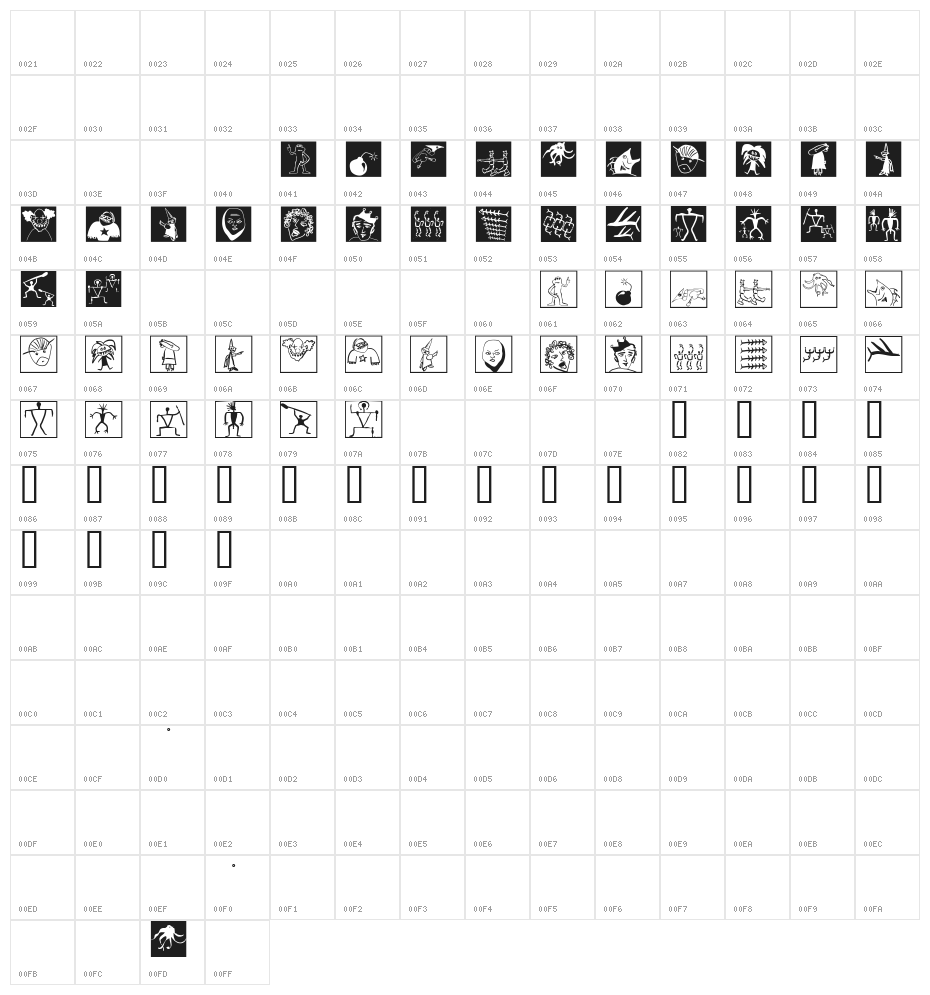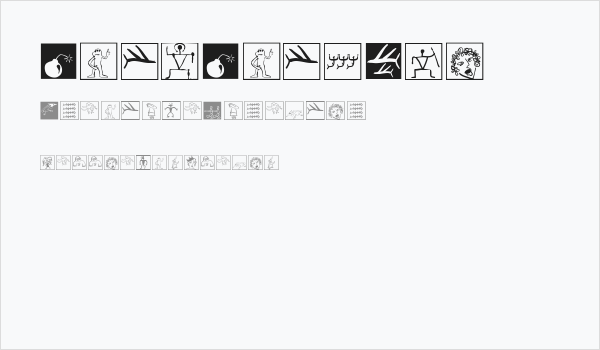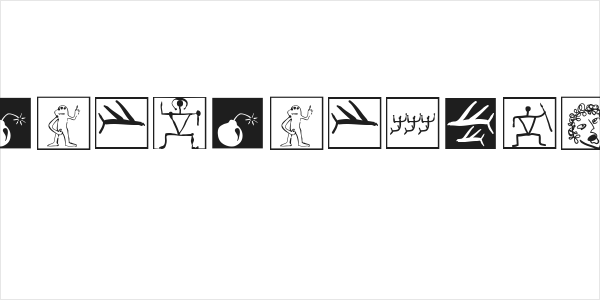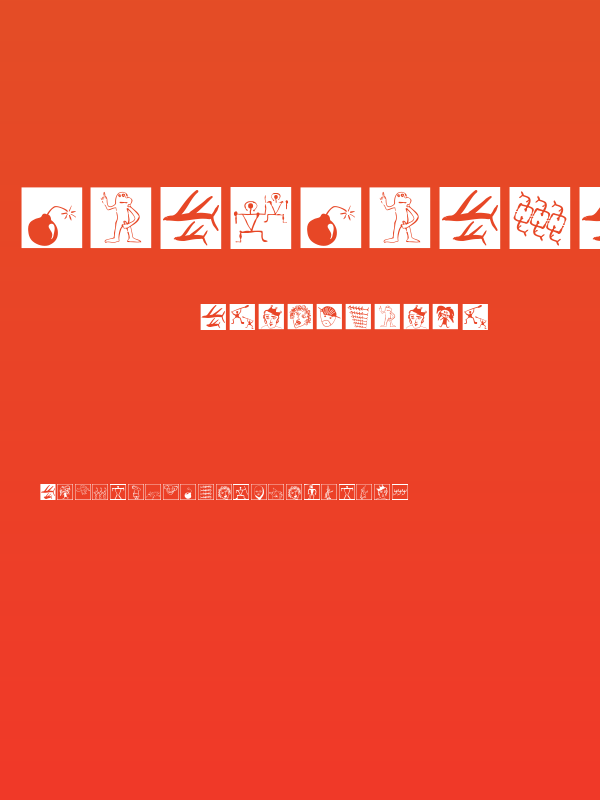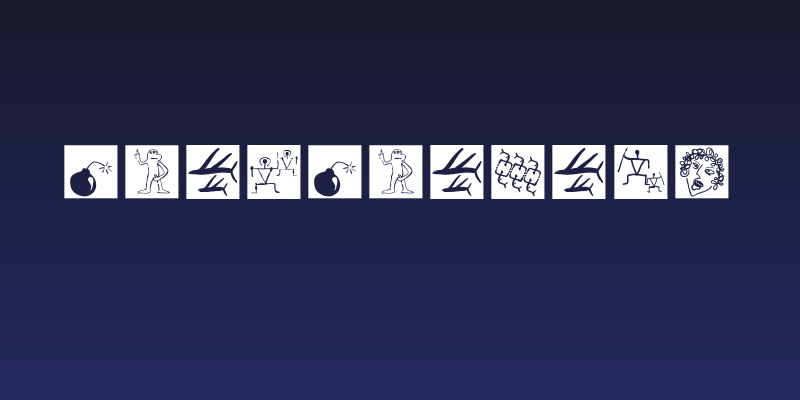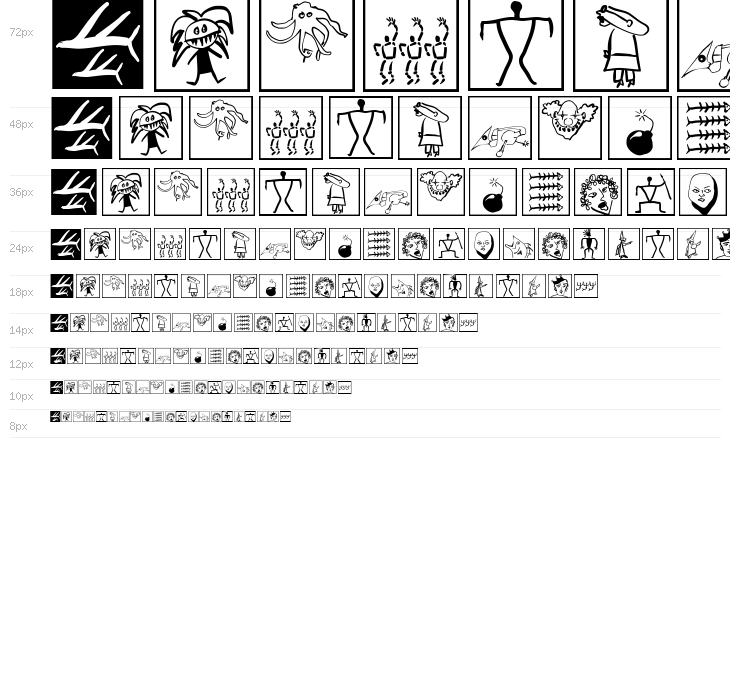
BatzBatsTwo Font
BatzBatsTwo Description
This is a highly decorative and artistic font that features a series of unique and whimsical illustrations instead of traditional alphanumeric characters. Each character is represented by a distinct drawing, ranging from abstract figures to playful and imaginative designs. The style is bold and expressive, with a strong emphasis on creativity and visual storytelling. The characters are enclosed in square frames, adding a structured yet dynamic feel to the overall design. This font is perfect for projects that require a touch of artistic flair and originality, making it ideal for creative branding, artistic posters, and unique invitations.
| Use Case | Logos, Artistic projects, Creative branding |
| Proposed Projects | Creative branding, artistic posters, unique invitations, and any project requiring a touch of originality and artistic flair. |